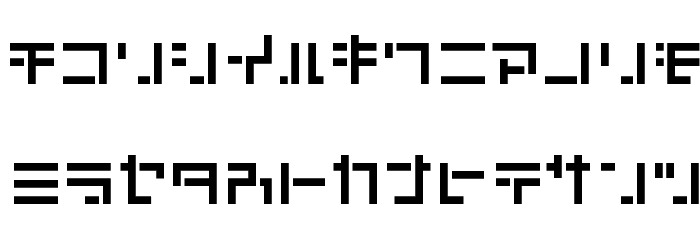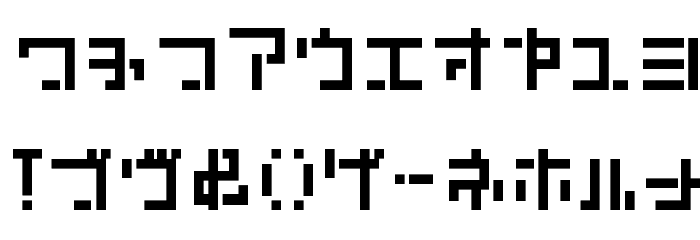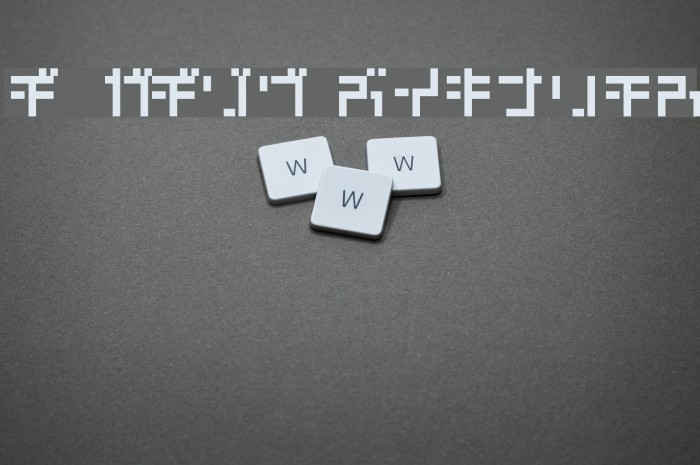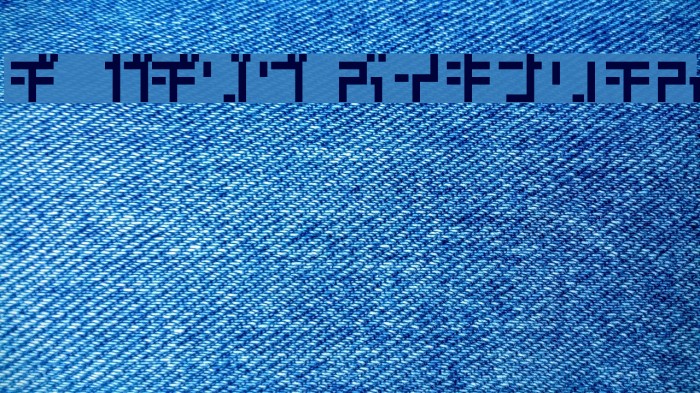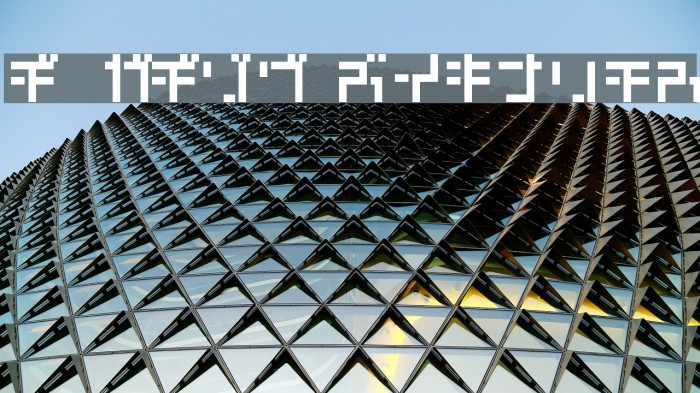
KATACHI RegularJ Font
This font features a bold, geometric style with a distinct block-like appearance. The characters are uniformly structured, giving a sense of stability and strength. The design is modern and minimalistic, with a focus on clean lines and sharp angles. Each letter is crafted with precision, making it highly legible even at smaller sizes. The uniformity in the height and width of the characters contributes to a cohesive and balanced look. This font is versatile, suitable for both digital and print media, and can be used to create a strong visual impact.
A bold, geometric font with a modern, minimalistic design.
- Proposed Projects: Ideal for branding, headlines, posters, and digital media where a strong visual impact is desired.